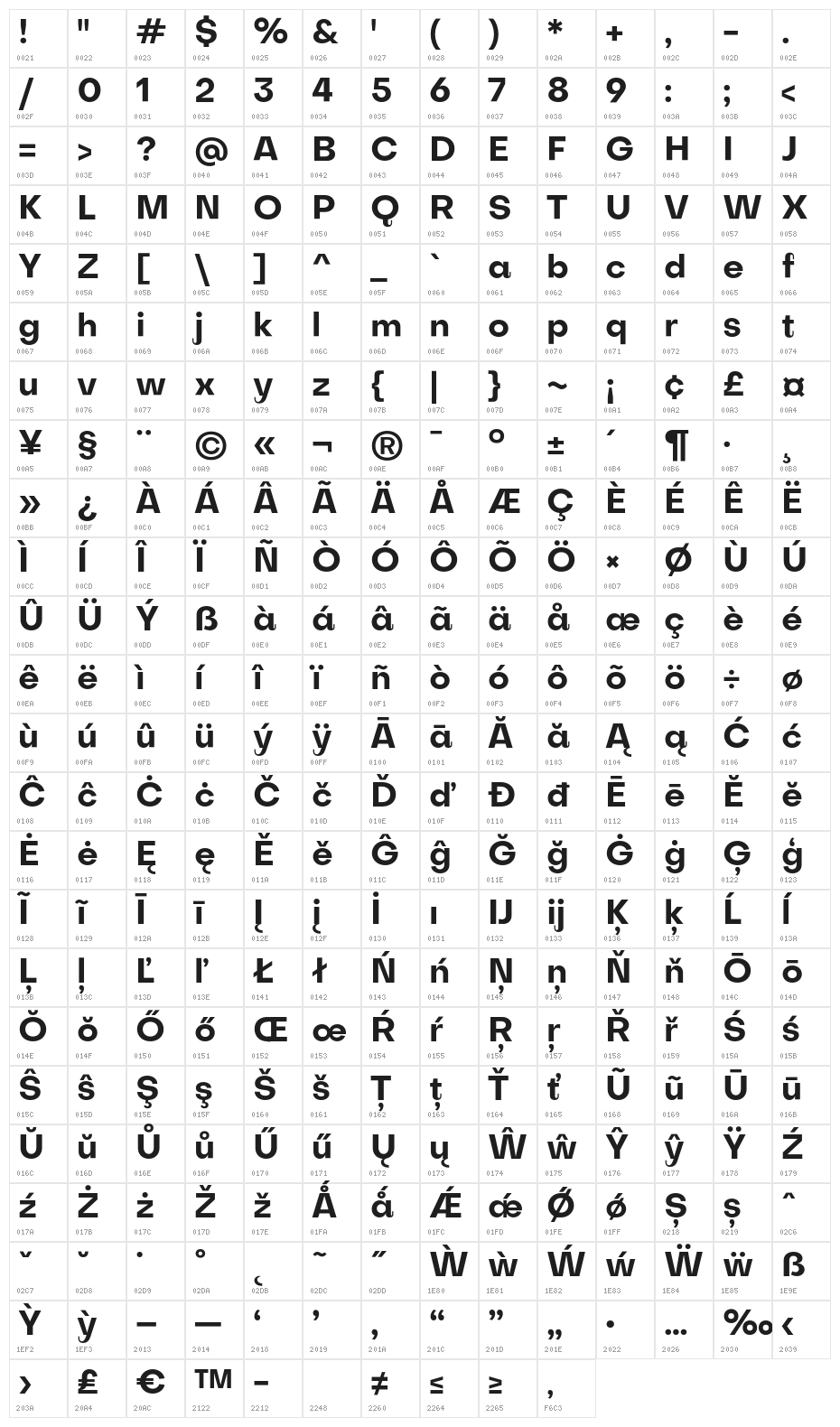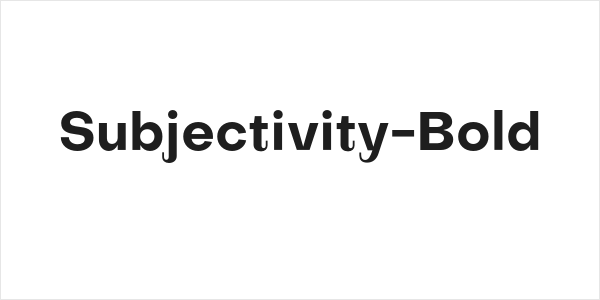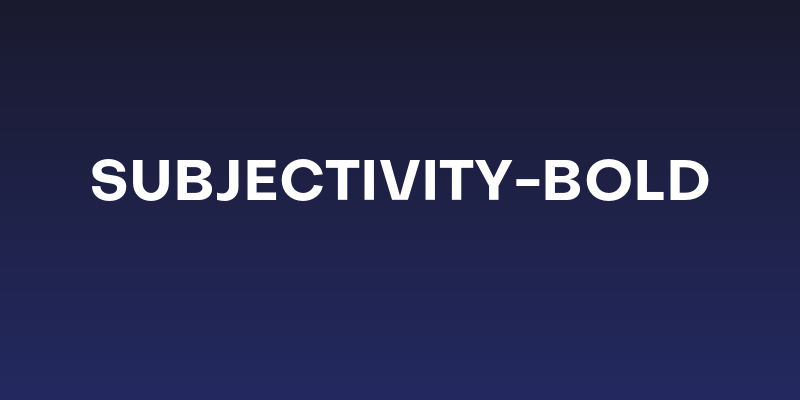
Subjectivity-Bold Font
Subjectivity-Bold Description
This font features a bold and modern sans-serif style with clean lines and a strong presence. The uppercase letters are uniform in height, providing a balanced and cohesive look. The lowercase letters maintain a consistent style, with rounded edges that add a touch of softness to the overall boldness. Numbers are clear and easy to read, making them suitable for various applications. Special characters are well-defined, ensuring versatility in design projects. The font's bold weight and normal width make it ideal for impactful headlines and attention-grabbing text.
Use CaseHeadlines, Logos, Advertising
Proposed ProjectsIdeal for branding, advertising, headlines, and digital media where a strong, modern look is desired.